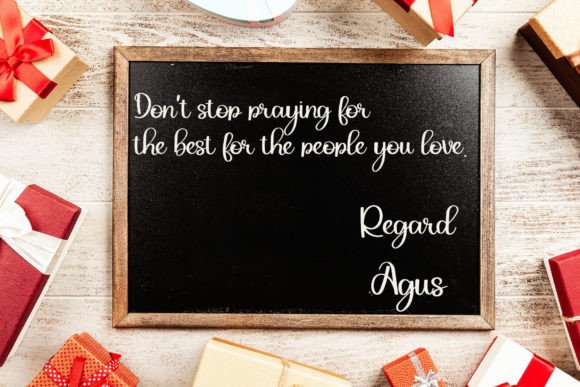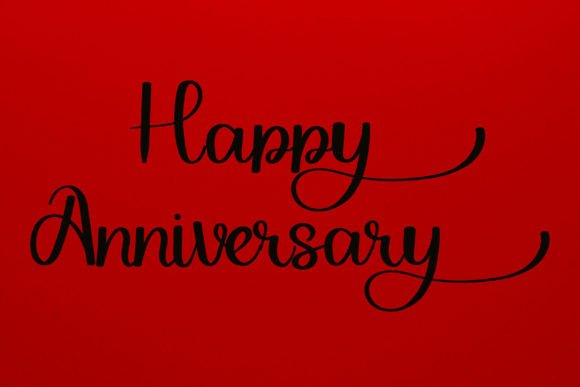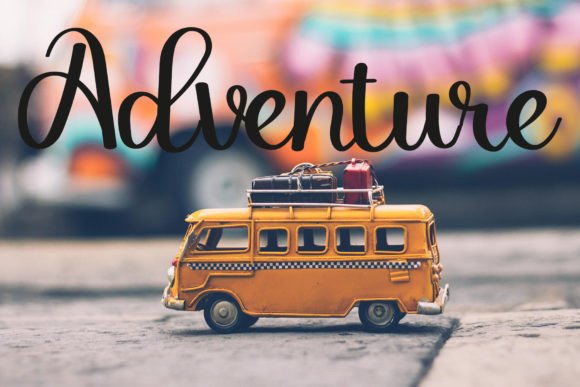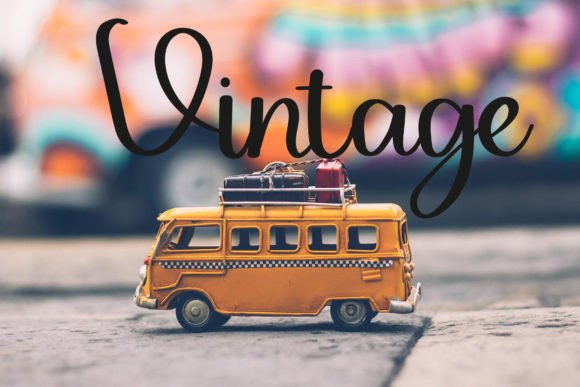
Keyna Font
About Keyna Font
Introducing Keyna, a delicate, elegant, and flowing handwritten font crafted to enhance your creative projects. With beautiful and well-balanced characters, Keyna is designed to match a wide pool of designs, adding a touch of sophistication to your most creative ideas. Watch as it breathes life into your projects, bringing a sense of delicacy and elegance.
The flowing and delicate nature of Keyna makes it versatile for a variety of design applications. Whether you’re working on invitations, branding materials, social media graphics, or any other creative project, this font complements a wide range of designs.
Keyna’s well-balanced characters contribute to its overall aesthetic, ensuring a harmonious and visually pleasing appearance. The elegance of each letter enhances the sophistication of your text, making it stand out with a refined and timeless quality.
In summary, Keyna is more than just a font; it’s a creative companion that elevates your designs with delicacy and elegance. Download Keyna now and discover how it can bring your most creative ideas to life. With its well-balanced characters and flowing handwritten style, Keyna is ready to add a touch of sophistication to your design projects.